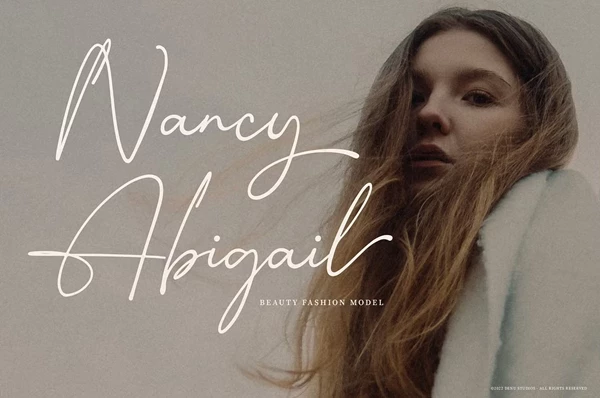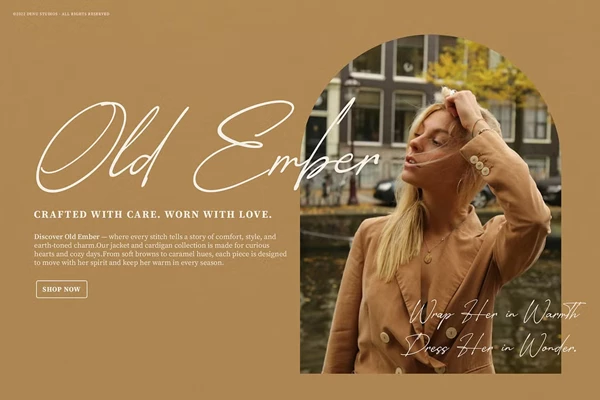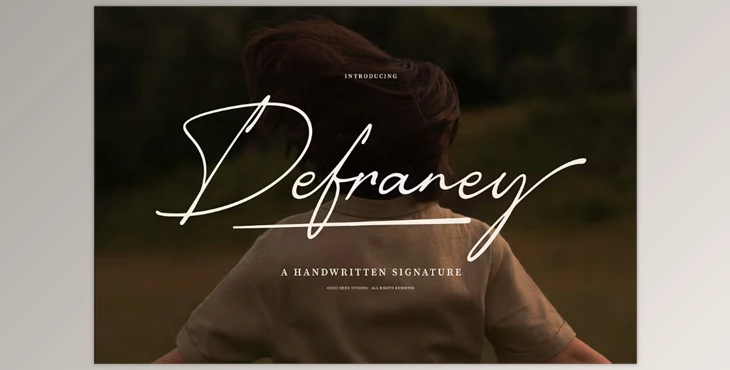
Defraney Font:
Developed by Denustudios, Defraney is a signature font that is versatile and designed to defend many Defraney projects. This font evokes a handcrafted and personal impression on logos, branding, product packaging, homeware, mugs, and even T-shirts. Its elegant style can be found in quotes, posters, greeting and invitation cards, and event materials. Other projects that benefit from the font include book covers, name cards, labels, photography watermarks, and any project needing a handwritten touch.
- Standard character sets, creative alternates and character ligatures are all included for versatile creativity.